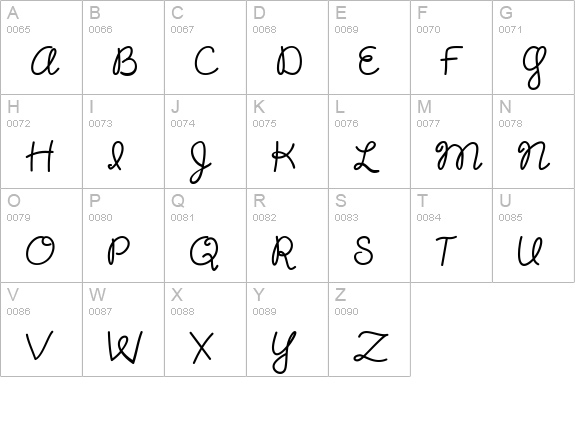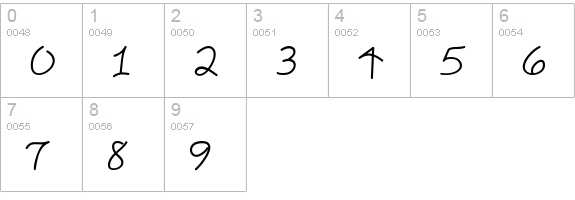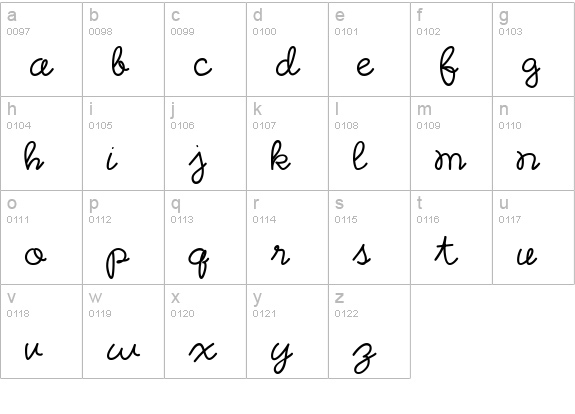
CK Letter Home Font Details
CK Letter Home is a charming and elegant handwritten font that captures the essence of heartfelt correspondence. With its delicate strokes and graceful curves, this font exudes a sense of warmth and nostalgia, making it perfect for personal letters, invitations, and other heartfelt messages. What sets CK Letter Home apart is not just its beauty, but also the fact that it is available for free download at FontsMarket.com. This means that you can easily add a touch of elegance and personality to your projects without breaking the bank. Whether you're looking to add a personal touch to your designs or simply want to evoke a sense of nostalgia, CK Letter Home is the perfect choice. Download it for free today and start adding a touch of handwritten charm to your projects.